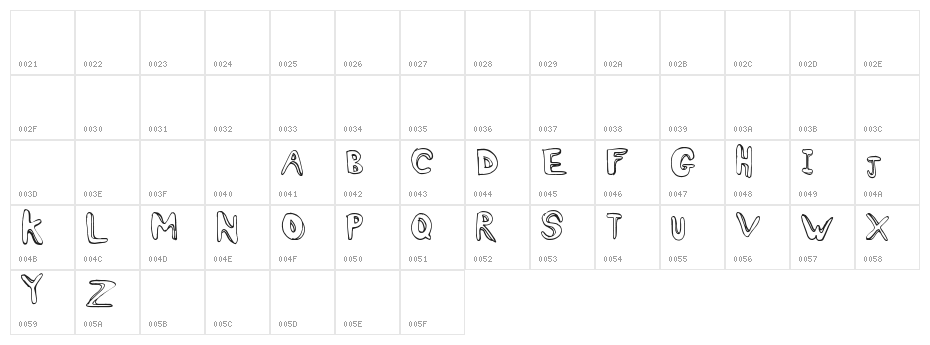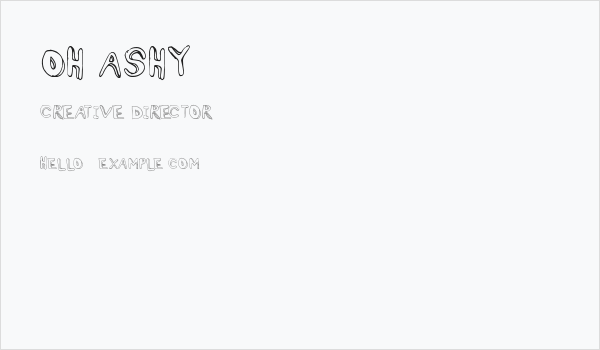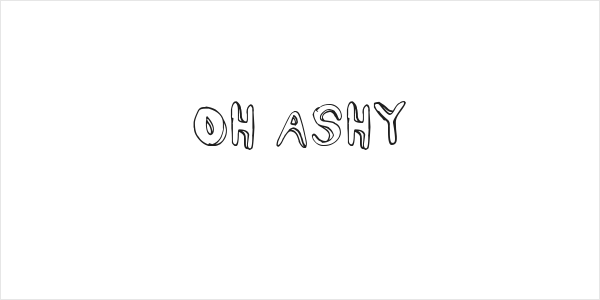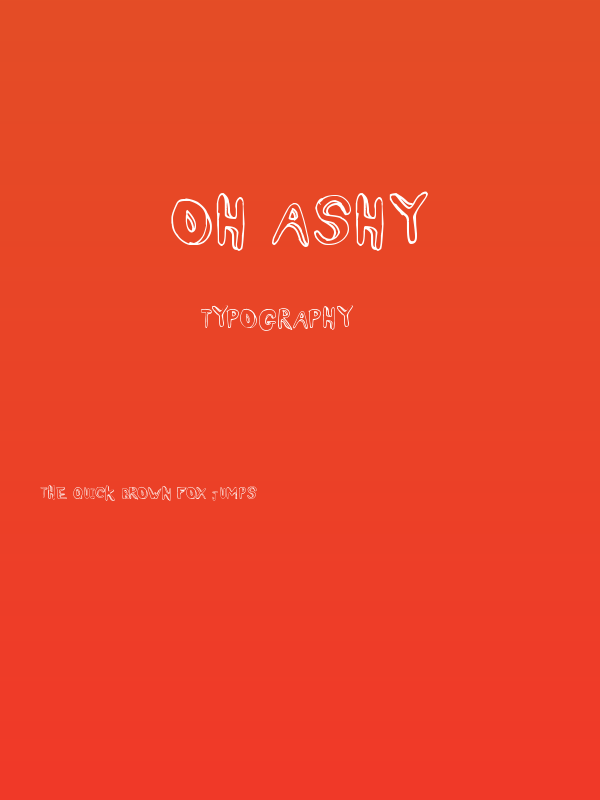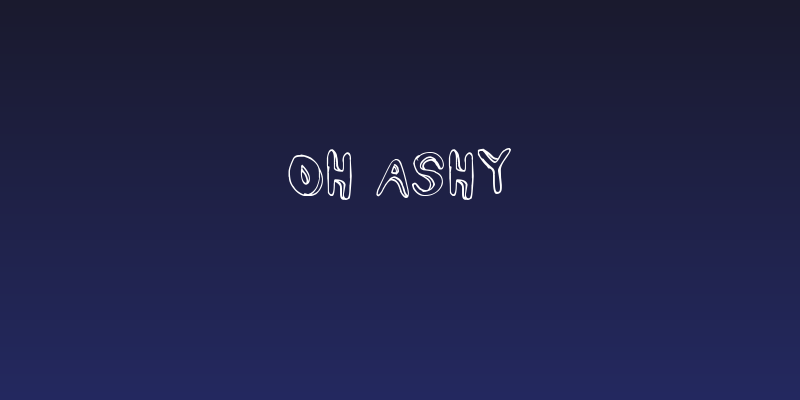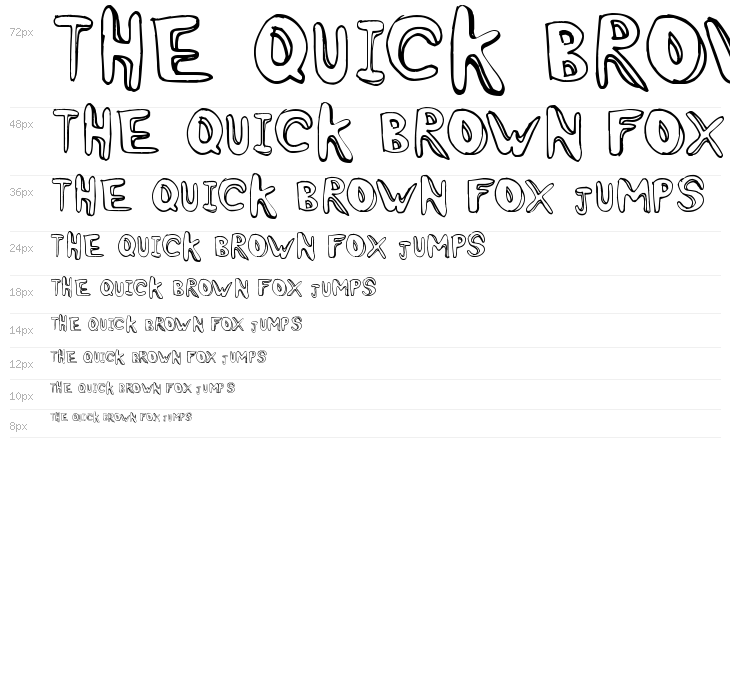
Oh Ashy Font
Oh Ashy Description
This font features a playful and quirky design, characterized by its uneven and hand-drawn appearance. The letters have a casual, doodle-like quality, with varying stroke thicknesses that give it a dynamic and energetic feel. The irregular shapes and slightly tilted angles add to its whimsical charm, making it stand out as a fun and informal typeface. The font's unique style is perfect for projects that require a touch of creativity and individuality. Its bold and expressive nature makes it suitable for eye-catching designs, while the hand-crafted look adds a personal touch.
| Overall Style | Whimsical, Playful |
| Use Case | Headlines, Posters, Creative Projects |
| Proposed Projects | Ideal for children's books, creative posters, casual branding, and playful invitations. |